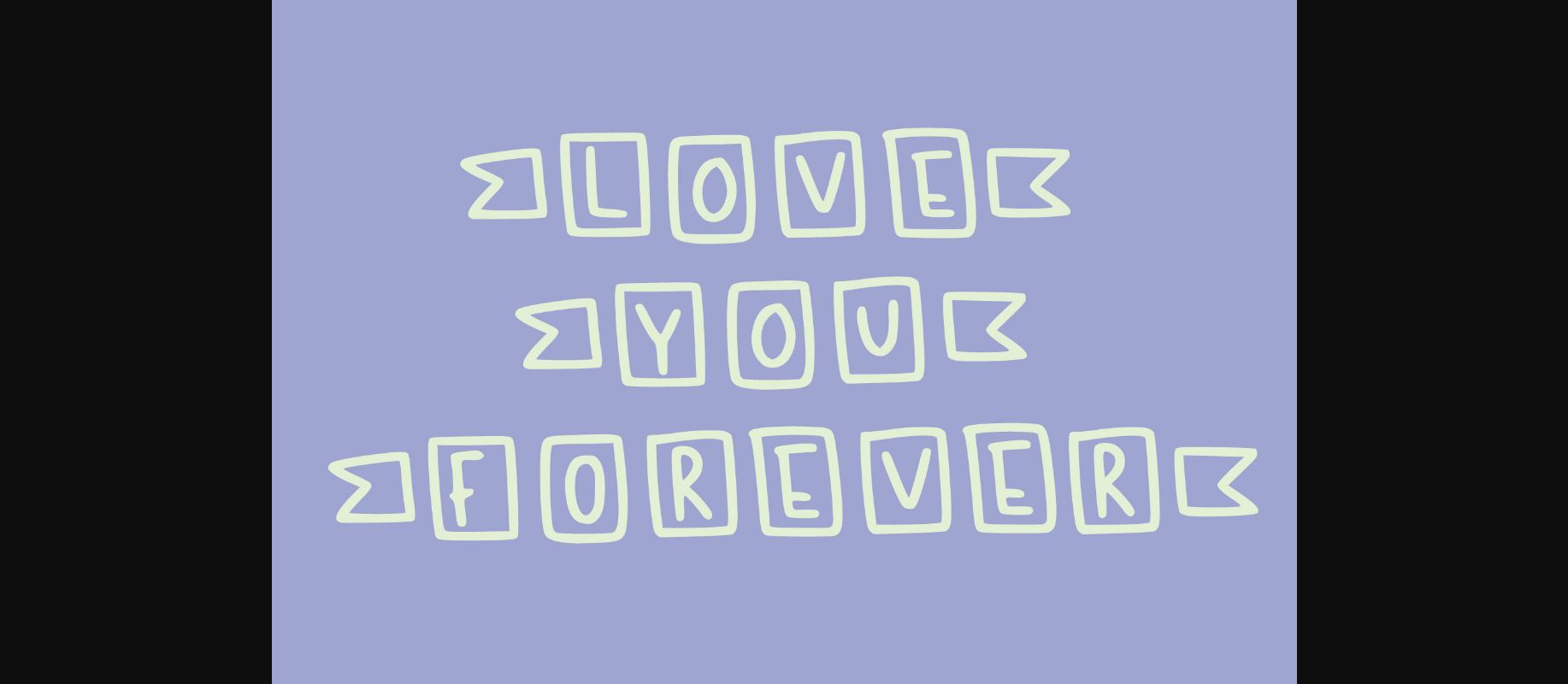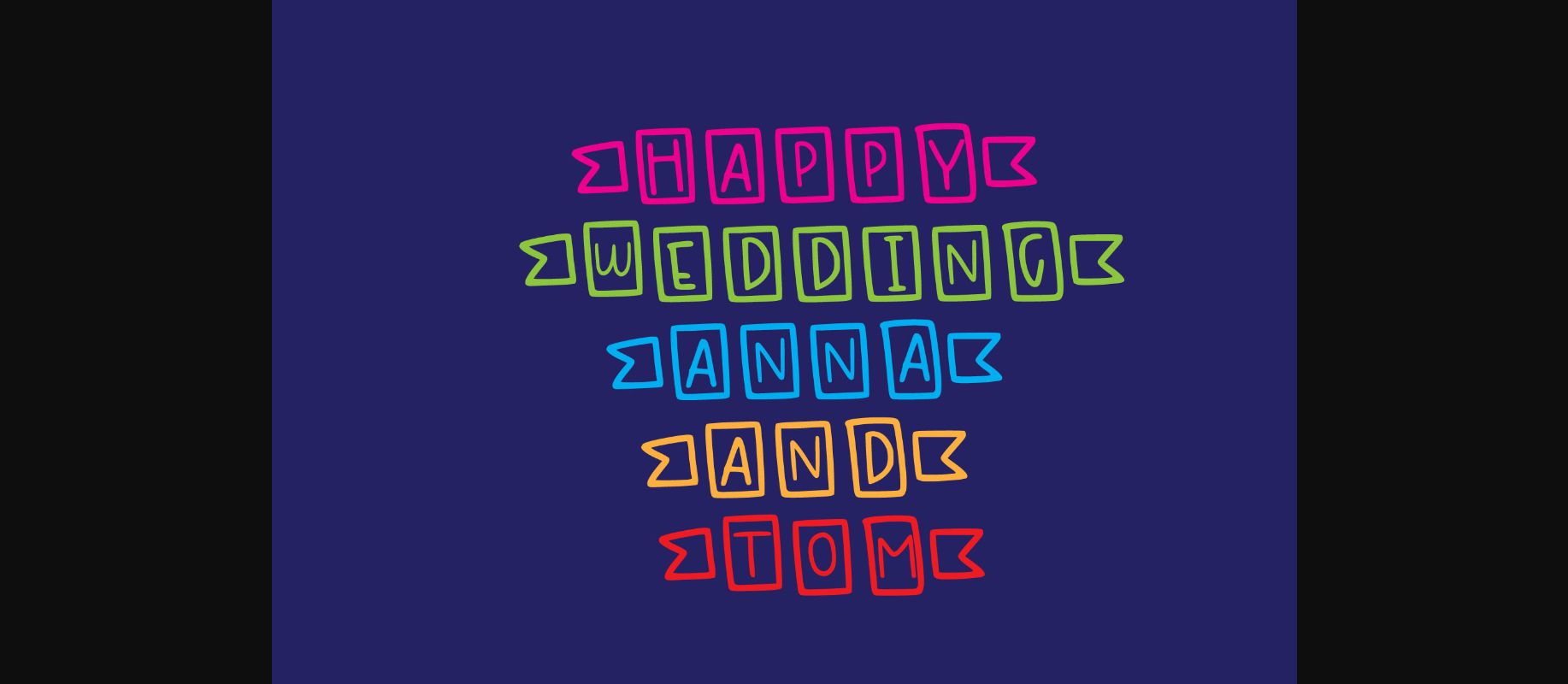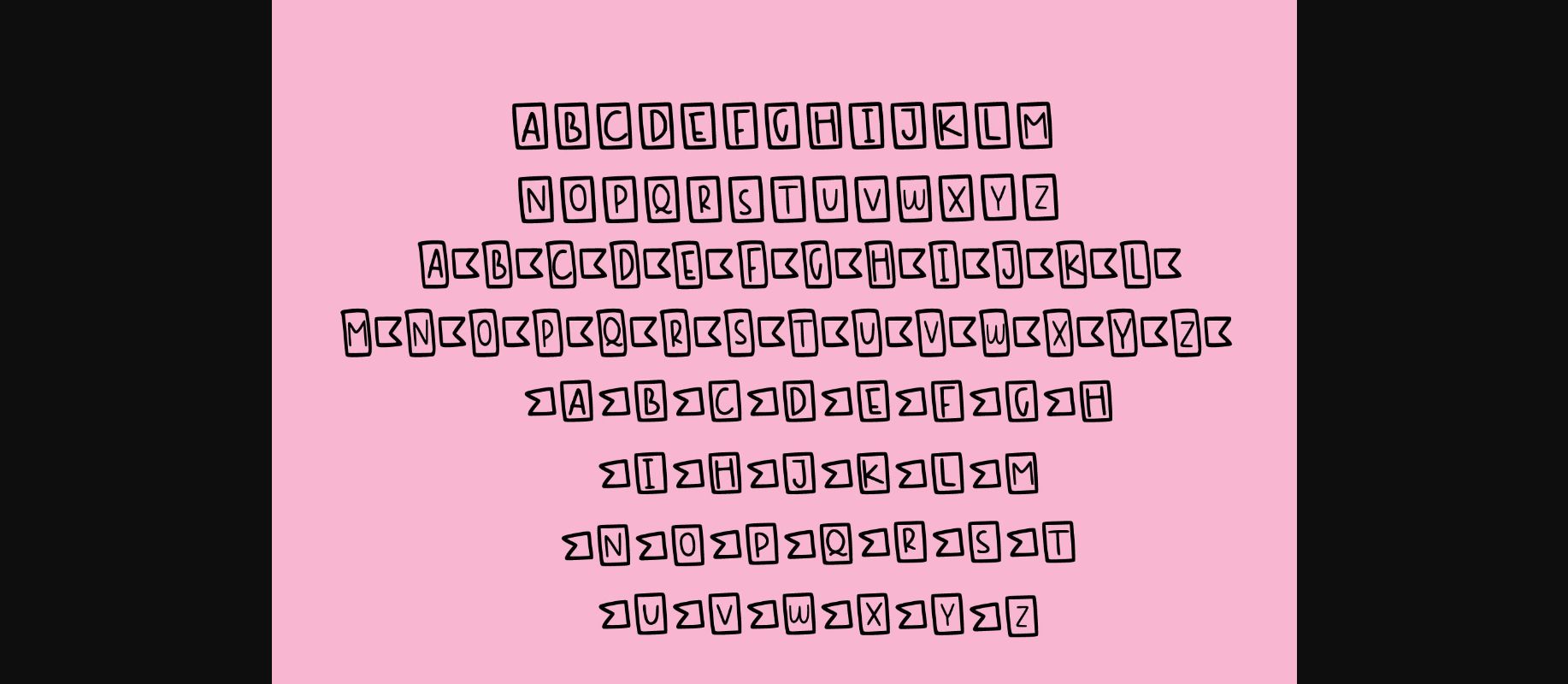
Fun Decorative Dingbats Font
About Fun Decorative Dingbats Font
Love You Forever is a cute, friendly and adaptable decorative font. No matter the topic, this font will be an incredible asset to your fonts’ library, as it has the potential to elevate any creation.